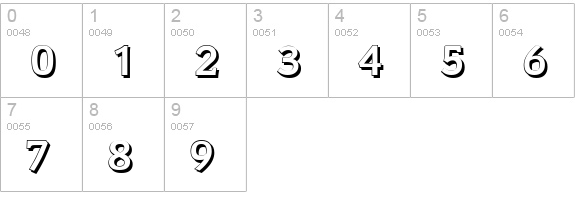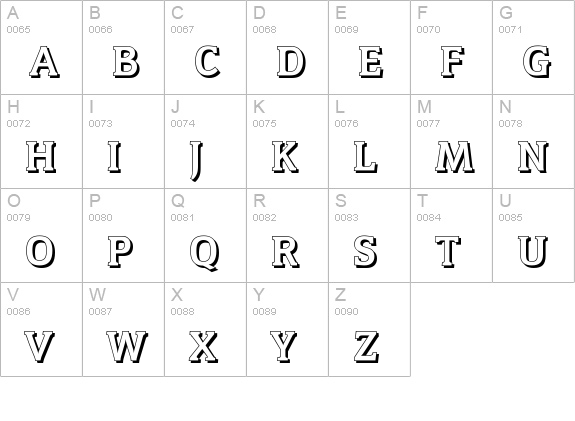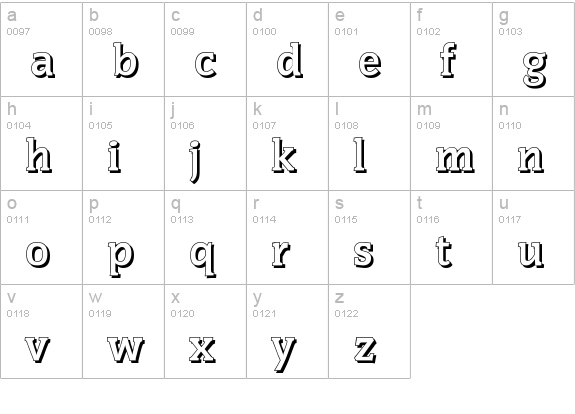
CongressShadow-Bold Font Details
CongressShadow-Bold is a strong, high-contrast variant in the CongressShadow typeface family \xE2\x80\x94 well suited to headlines, attention-grabbing titles, and strong calls-to-action.
CongressShadow-Bold font is a bold and impactful typeface that commands attention with its strong and striking appearance. The sharp edges and intricate details give it a modern and sophisticated feel, making it perfect for headlines, posters, and branding projects that require a powerful visual presence. This versatile font is ideal for making a statement and standing out from the crowd. Its bold and authoritative design is perfect for emphasizing important information and capturing the audience's attention. Best of all, CongressShadow-Bold font is available for free download at FontsMarket.com. Now you can elevate your designs with this premium font without breaking the bank. Don't miss out on this fantastic opportunity to add a touch of boldness and style to your projects with CongressShadow-Bold font.